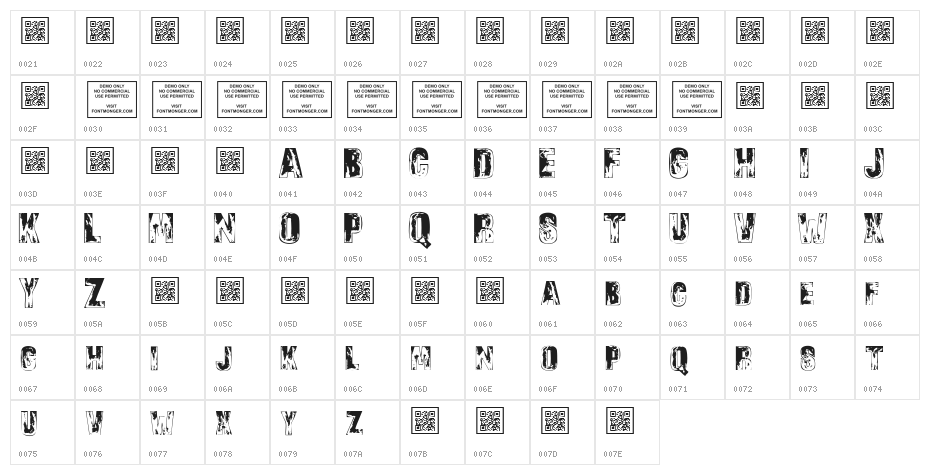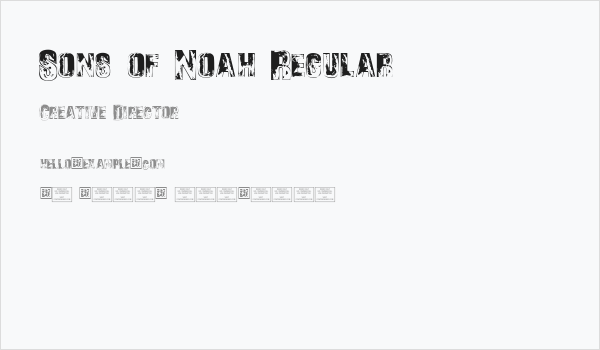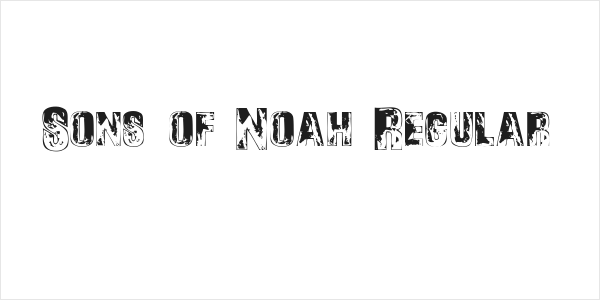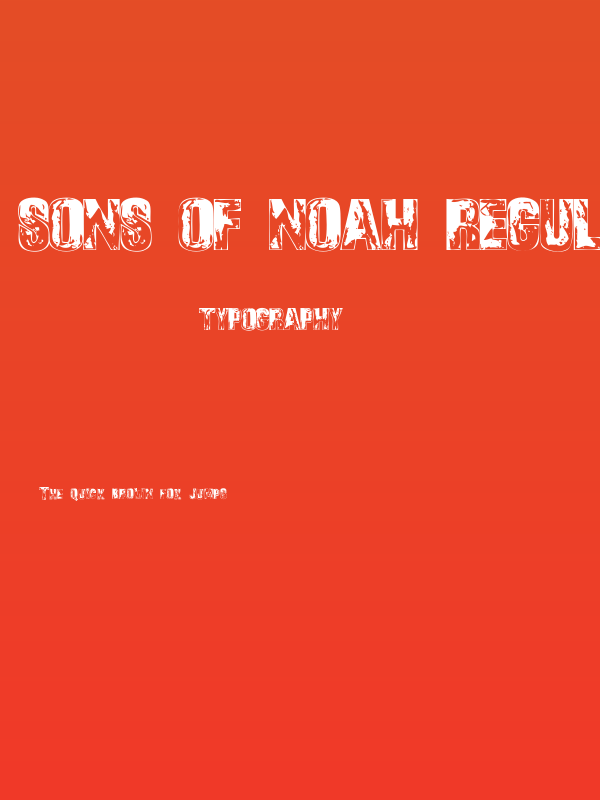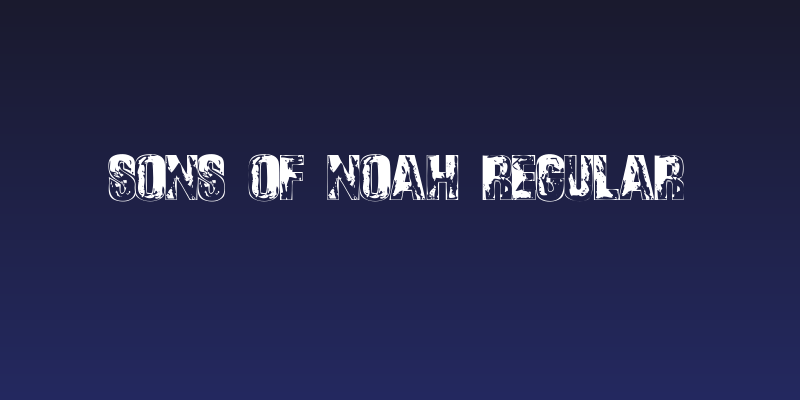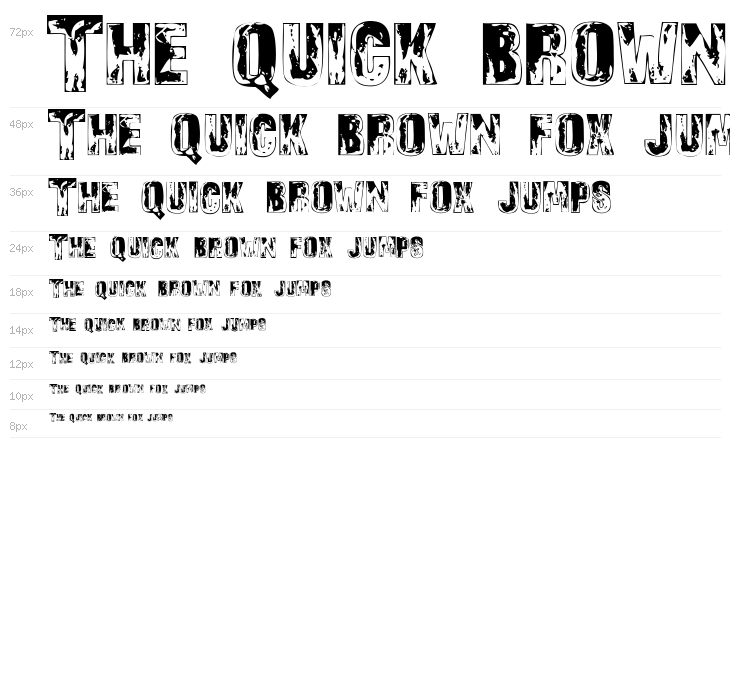
Sons of Noah Regular Font
Sons of Noah Regular Description
This font features a bold and distressed style, with a grunge texture that gives it a rugged and edgy appearance. The uppercase letters are prominently displayed with a rough, worn-out look, making it ideal for designs that require a strong, impactful presence. The font's unique texture adds character and depth, making it suitable for creative projects that aim to stand out. Its boldness and decorative elements make it a great choice for headlines, posters, and artistic designs where a bold statement is needed.
| Use Case | Headlines, Posters, Artistic Designs |
| Proposed Projects | Ideal for posters, album covers, event flyers, and any project needing a bold, edgy look. |